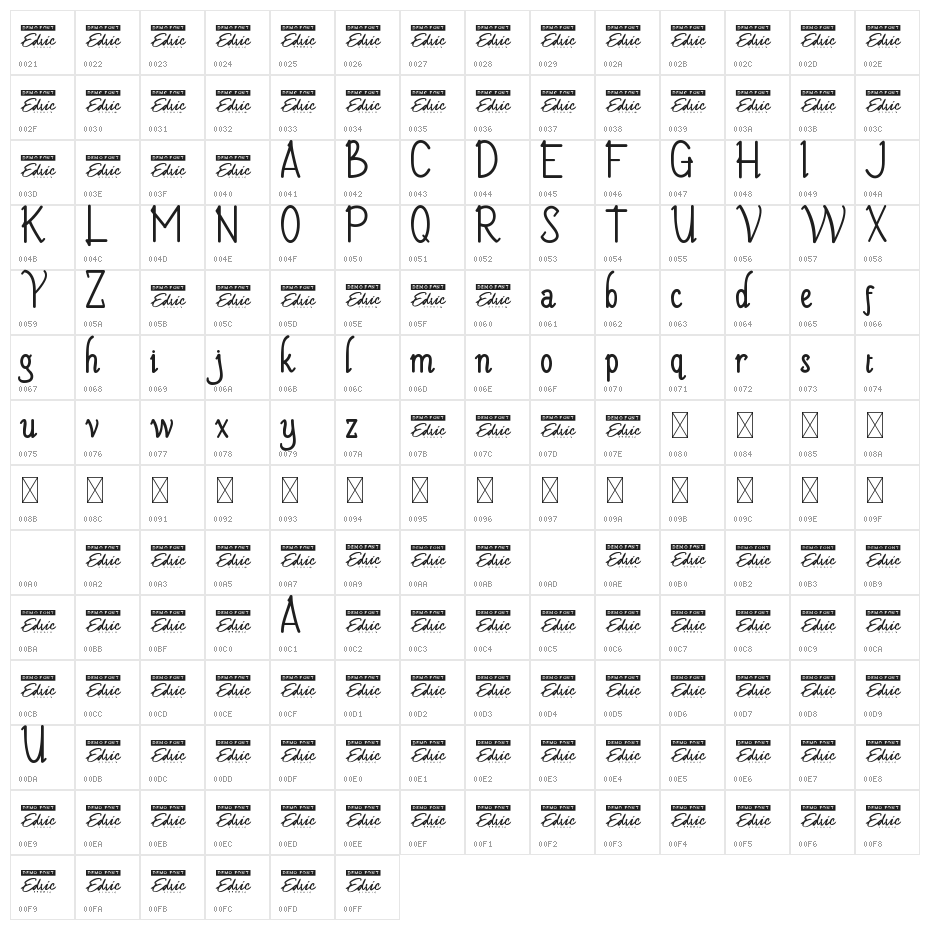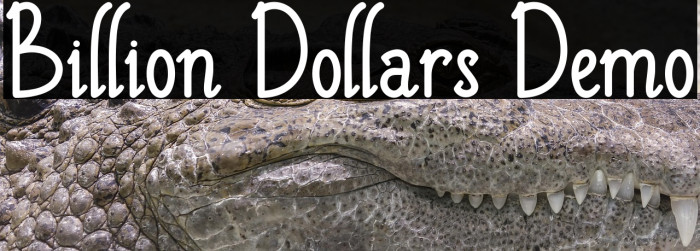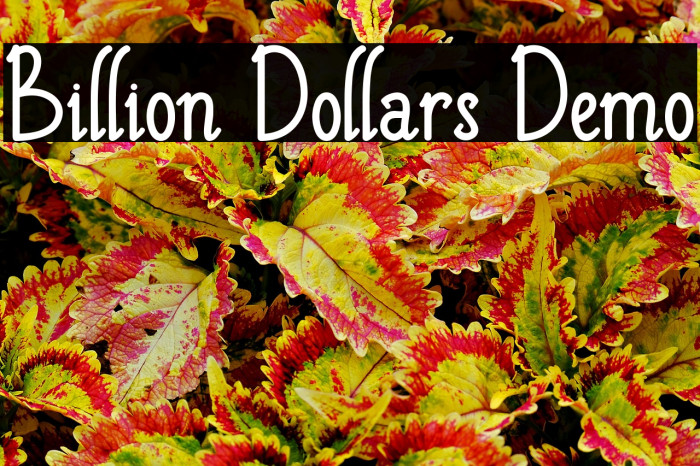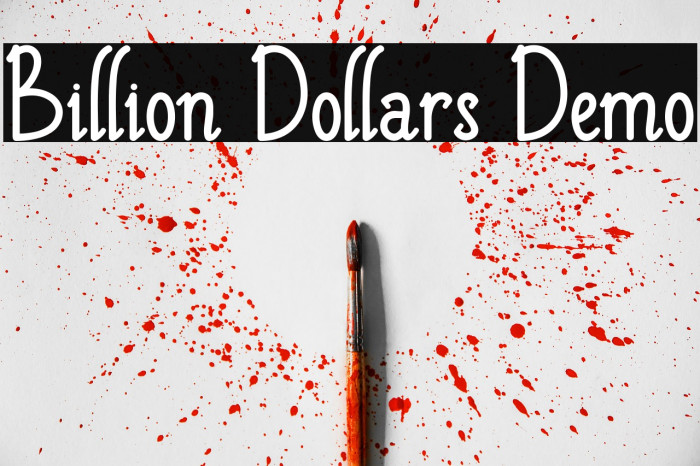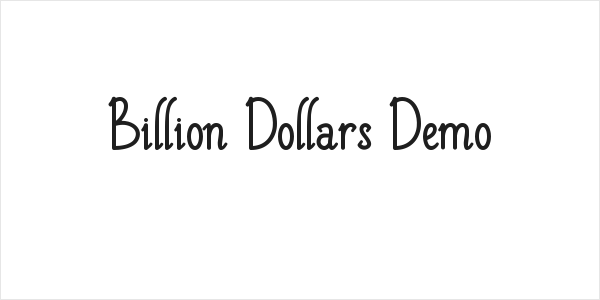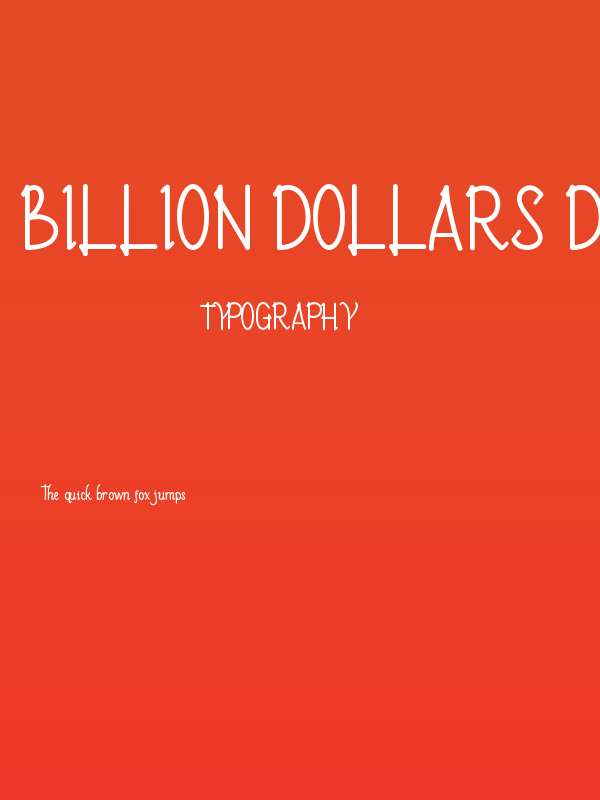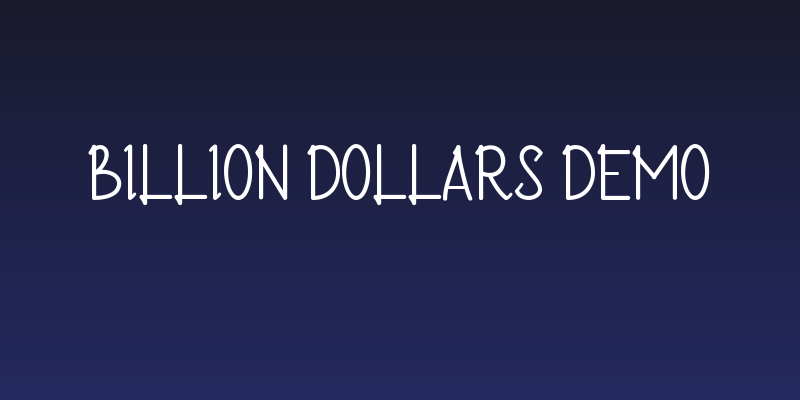
Billion Dollars Demo Font
Billion Dollars Demo Description
This font features a unique blend of playful and elegant characteristics, with a handwritten style that exudes a sense of creativity and warmth. The uppercase letters are tall and slender, with a slight curve that adds a touch of whimsy. The lowercase letters are more rounded and fluid, creating a harmonious balance between the two cases. The font includes a full set of numerals and a selection of special characters, making it versatile for various design needs. Its distinct style is perfect for projects that require a personal touch, such as invitations, greeting cards, and branding materials.
| Overall Style | Playful, Elegant |
| Proposed Projects | Ideal for invitations, greeting cards, branding, and creative projects requiring a personal touch. |